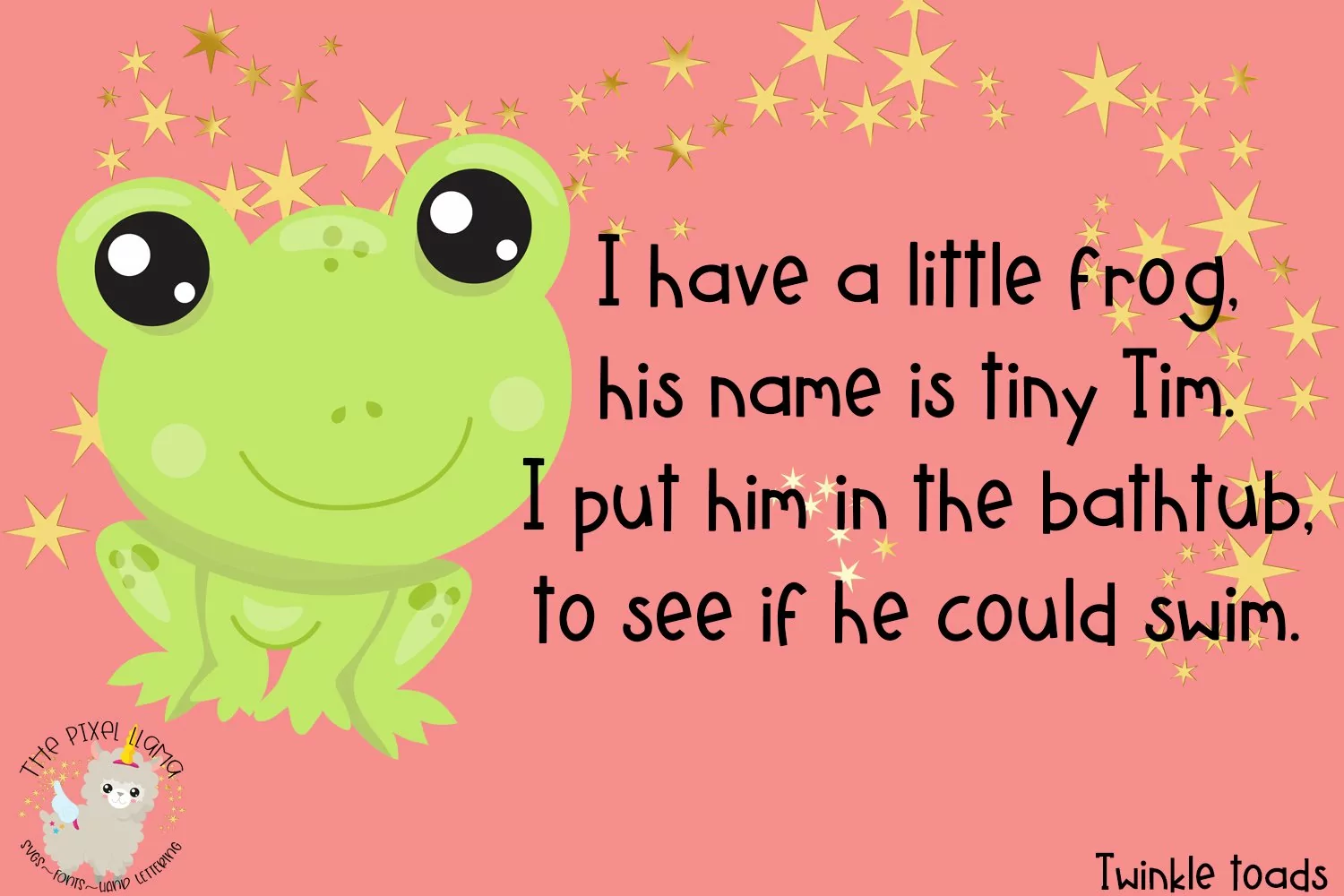
Twinkle Toads Font
Great for crafters with crisp clean lines for cutters. Perfect for making SVGs logos and more.
Includes Upper and Lowercase numbers 0-9 and symbols.